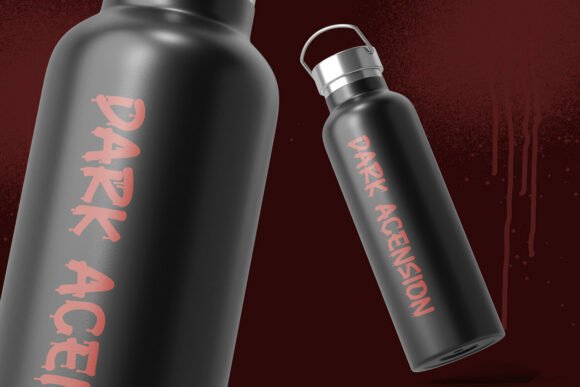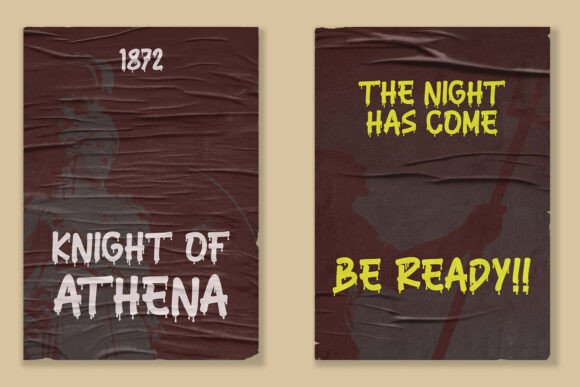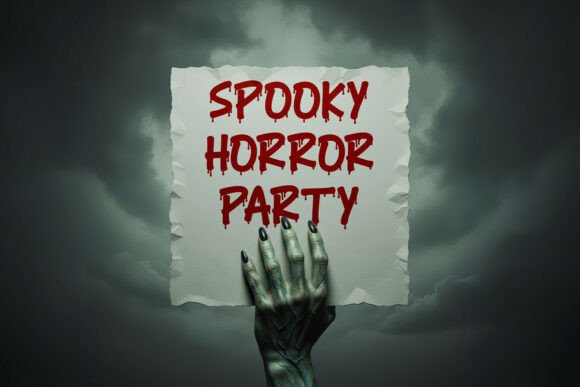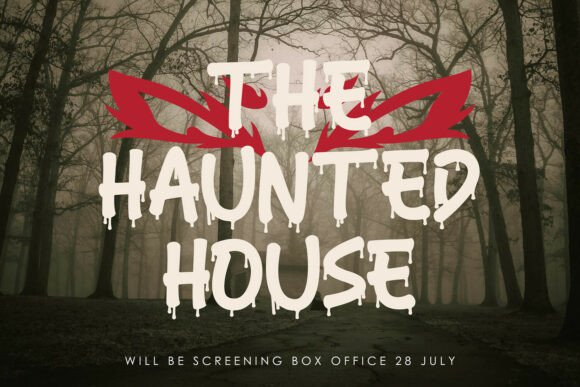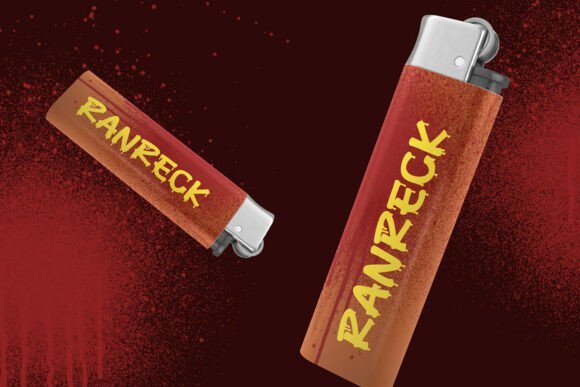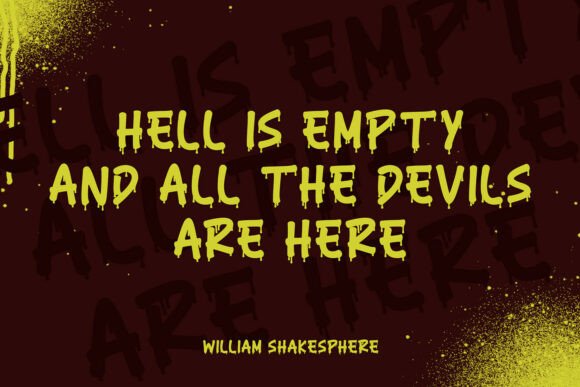
Introduction to Nicedreams Font Font
Fonts play a crucial role in design, and the Nicedreams Font font is a typeface that brings both character and versatility to any project. Whether you’re working on a branding project, a website, or a print design, the Nicedreams Font font offers a unique style that can elevate your work.
Nicedreams is a drip decorative font designed with a bold and playful dripping effect that creates a unique and eye-catching appearance.
This font is perfect for logos, posters, branding, headlines, packaging, social media graphics, and creative typography projects Nicedreams adds a strong visual impact with its decorative dripping details, making designs feel more dynamic and artistic.
Key Features of Nicedreams Font Font
Why Choose Nicedreams Font Font?
The Nicedreams Font font is more than just a typeface – it’s a design tool that helps you communicate your message with style and clarity. Its unique character set and versatile design make it suitable for a wide range of applications, from elegant invitations to bold headlines.
With its carefully crafted letterforms and balanced proportions, the Nicedreams Font font ensures readability and visual appeal across all mediums.
What makes Nicedreams Font font special?
The Nicedreams Font font stands out with its unique design, exceptional readability, and versatility across various design applications.